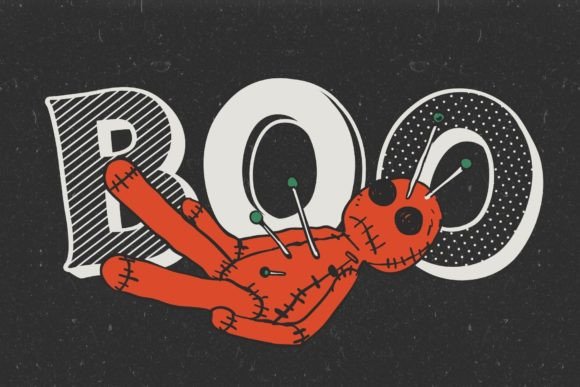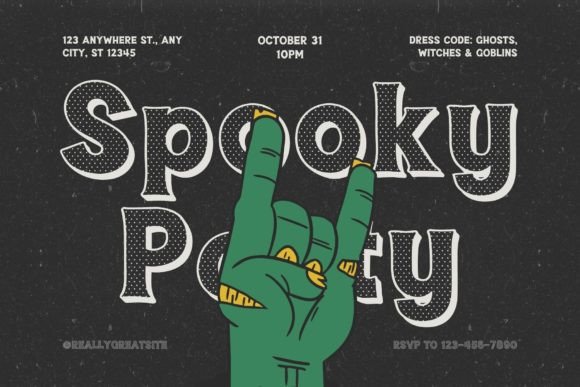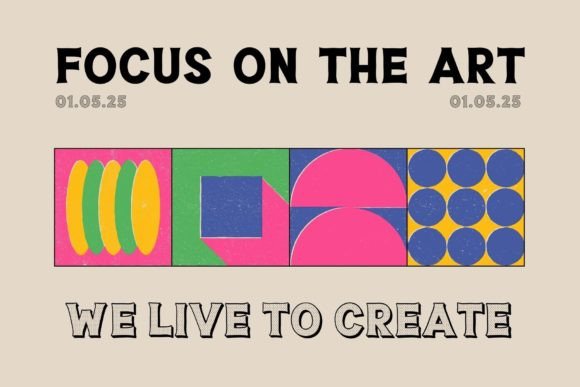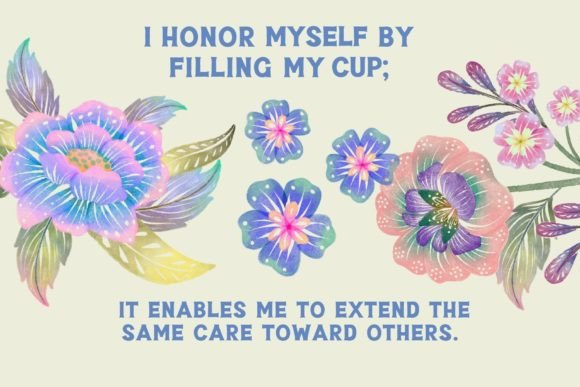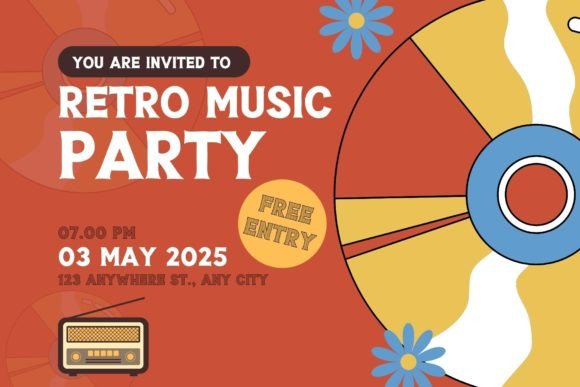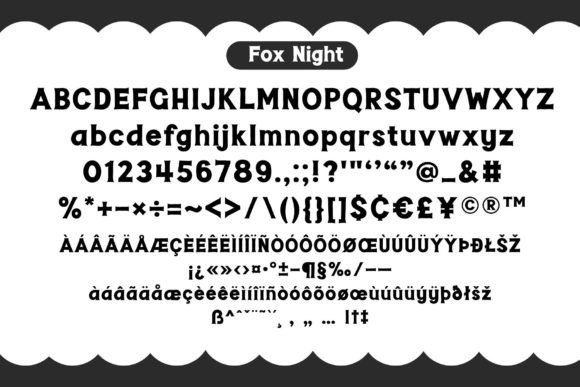
The Ultimate Display Font: Fox Night – Adding a Captivating Touch to Your Designs
Have you ever been in the middle of a design project, and suddenly, you’re stuck on finding the perfect font? I recall a recent experience where I was working on a vibrant t-shirt design for a client, and my usual go-to fonts just weren’t cutting it. The design needed something fresh, energetic, and attention-grabbing. That’s when I stumbled upon the Fox Night font, a 5-style display font that instantly elevated my design game.
A First Impression: What Makes Fox Night Stand Out
Fox Night is more than just a font – it’s a design statement. With its cool and fun-style display features, it adds a captivating and energetic touch to any design project. Whether you’re working on publications, menus, logos, business cards, or even t-shirts, Fox Night exudes uniqueness and creativity.
An Honest Review: The Good and the Quirks
What I Love About Fox Night ✨
• ✅ Vibrant and expressive design that grabs attention
• ✅ 5 style variations to experiment with
• ✅ Perfect for creating headlines, t-shirt typography, banners, and more
• ✅ Easy to read, even in larger sizes
• ⚠️ Limited use in very formal or traditional designs
• ⚠️ May not be the best choice for body text due to its display nature
While the origins of Fox Night remain a bit mysterious, it’s clear that the designer aimed to create a font that embodies fun, creativity, and energy. Imagine a late-night brainstorming session, fueled by coffee and a passion for innovative design. This font could be the result of experimenting with letterforms, shapes, and vibrant colors, ultimately leading to a collection of 5 styles that can transform any design.
Q: What makes Fox Night unique?
A: Fox Night stands out due to its vibrant and expressive design, along with its 5 style variations, making it perfect for attention-grabbing headlines and creative projects.
Q: Is Fox Night difficult to read?
A: Despite its display nature, Fox Night is designed to be legible, especially in larger sizes or when used for headlines.
Fox Night is more than just a font – it’s a creative tool that can transform your designs from ordinary to extraordinary. With its unique styles and versatility, it’s an excellent addition to any designer’s toolkit.